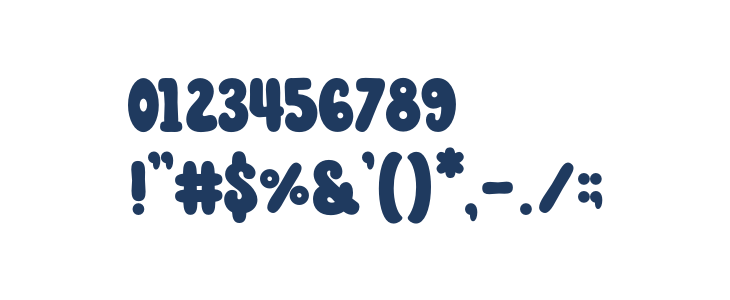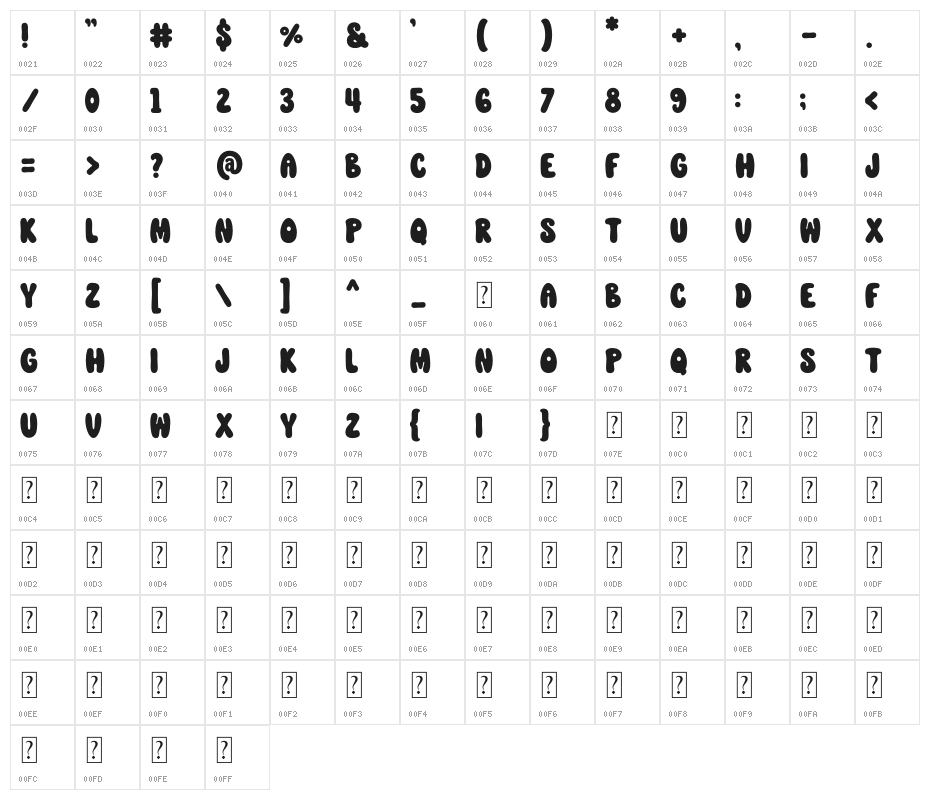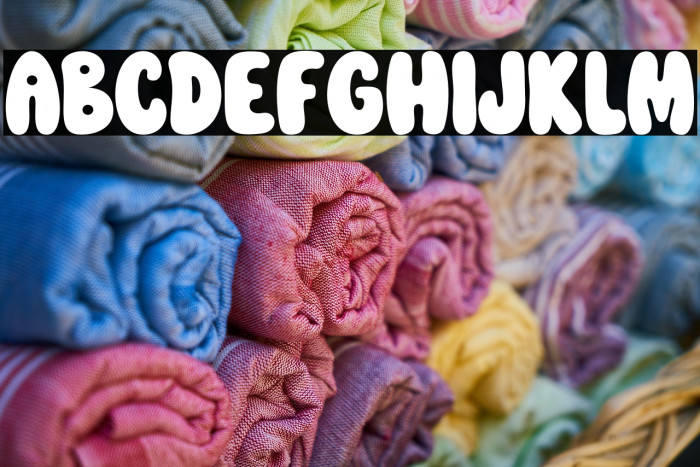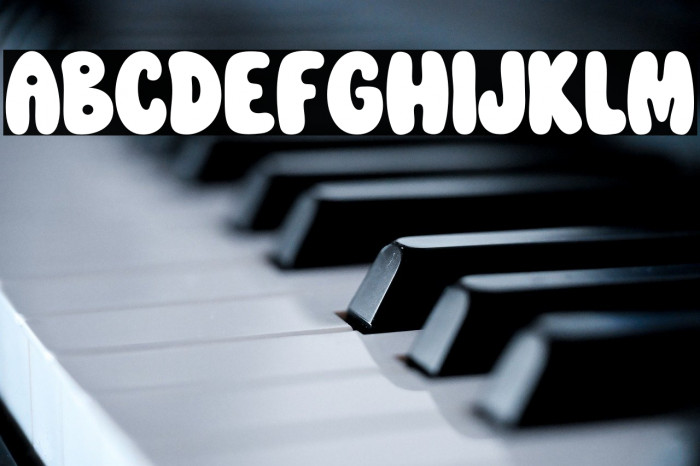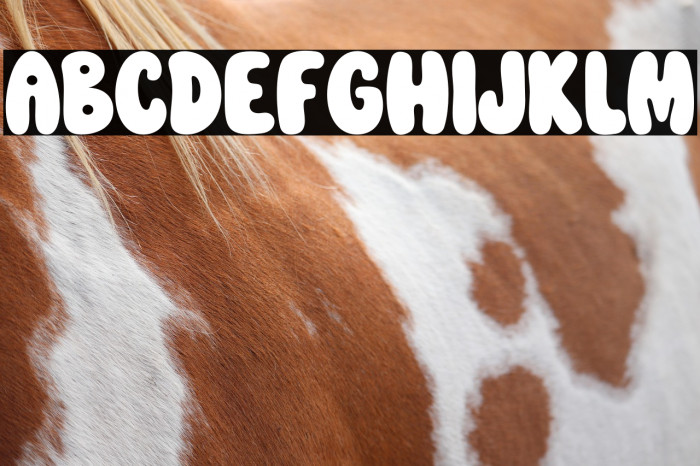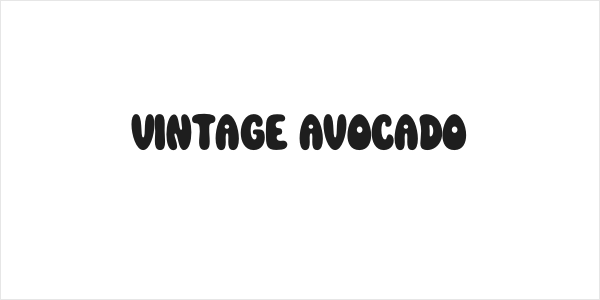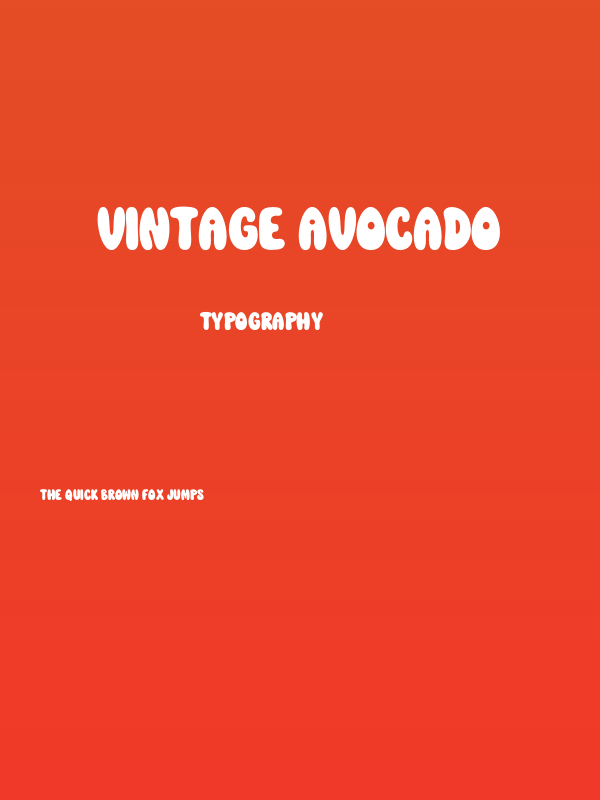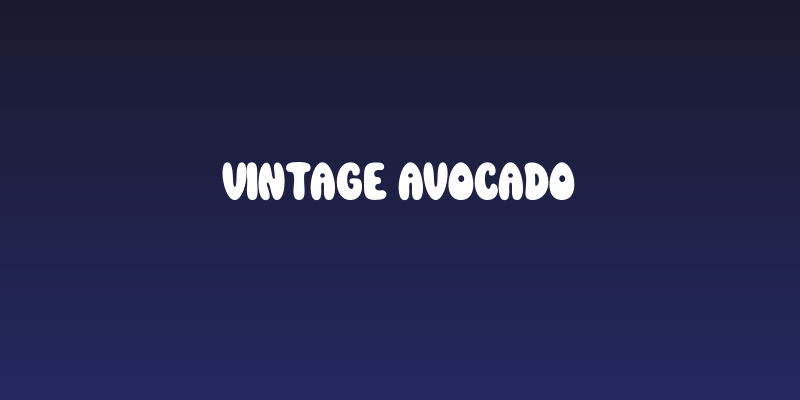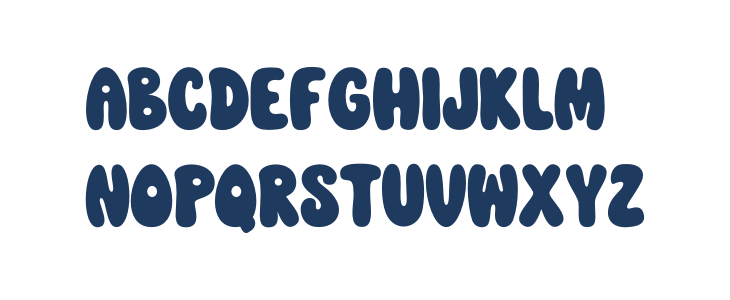
Vintage Avocado Font
Vintage Avocado Description
This font features a bold and playful design with rounded, thick strokes that give it a bubbly and friendly appearance. The characters are uniformly wide, creating a sense of balance and consistency across the alphabet. The uppercase and lowercase letters maintain a cohesive style, with the lowercase mirroring the playful curves of the uppercase. Numbers and special characters are crafted with the same attention to rounded forms, ensuring a harmonious look throughout. This font's boldness and unique style make it stand out, perfect for designs that require a touch of whimsy and fun.
| Overall Style | Playful, Fun |
| Proposed Projects | Ideal for children's books, playful branding, posters, and any project needing a fun, approachable feel. |